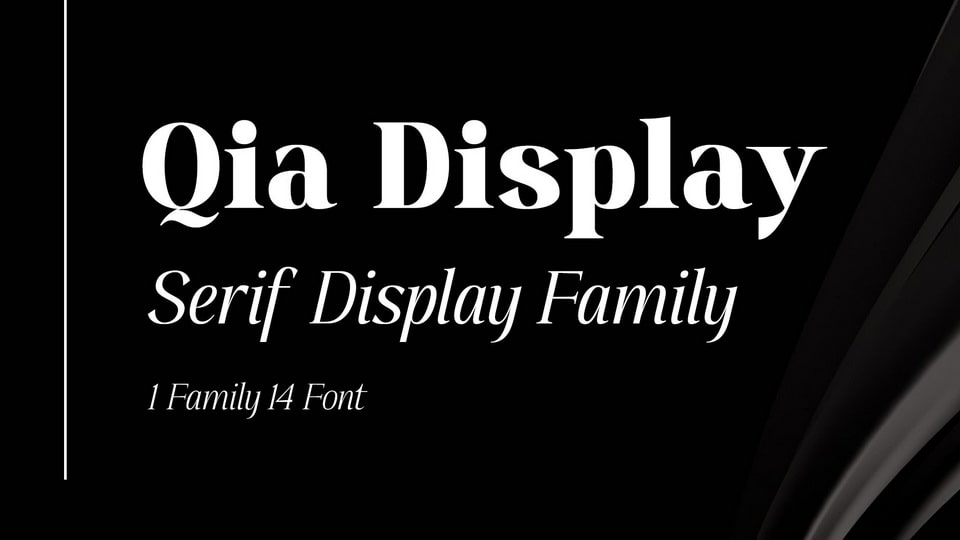
Download Qia Display font, a modern serif typeface that embodies elegance and style in every character. It is perfect for luxury logos, branding, classy editorial designs.
Designer: Mytype Studio